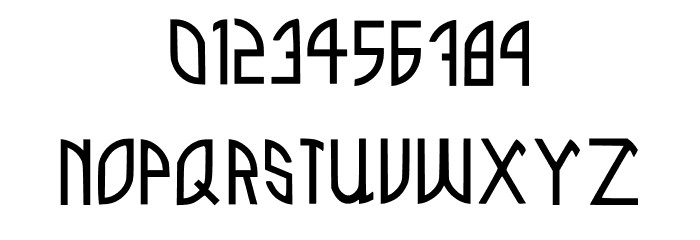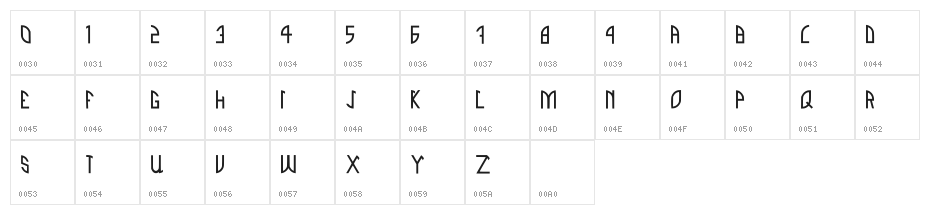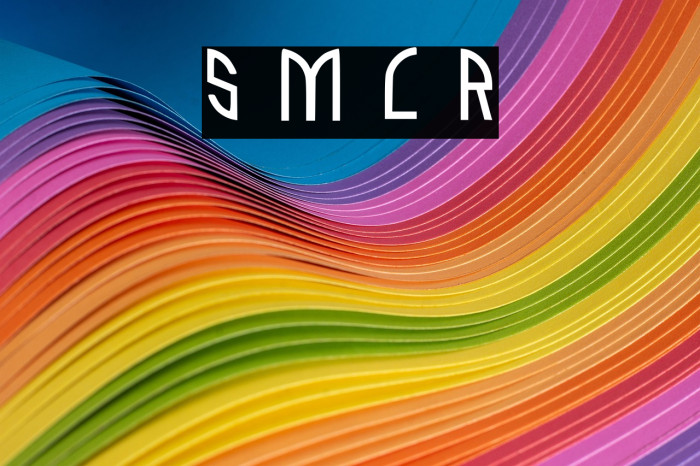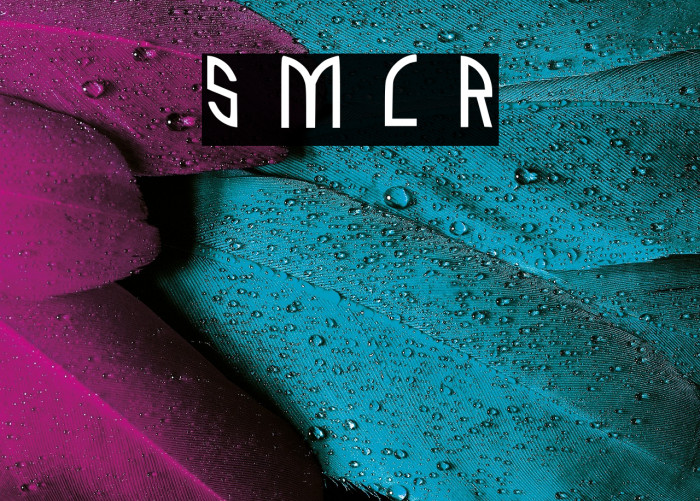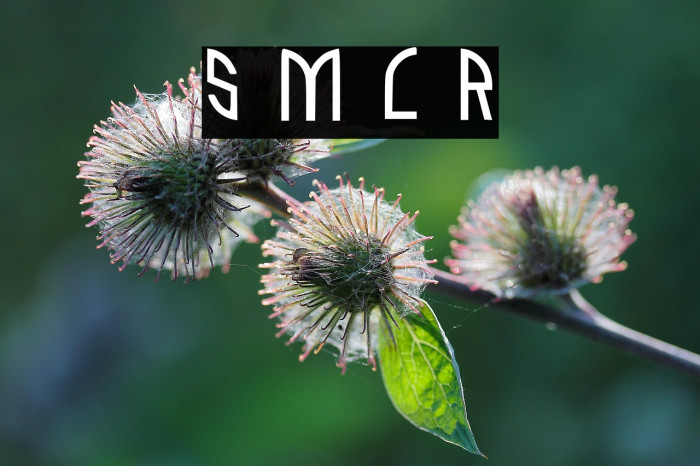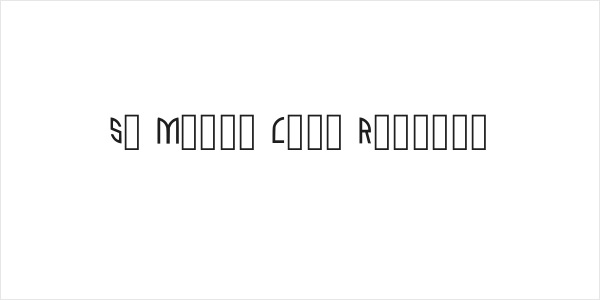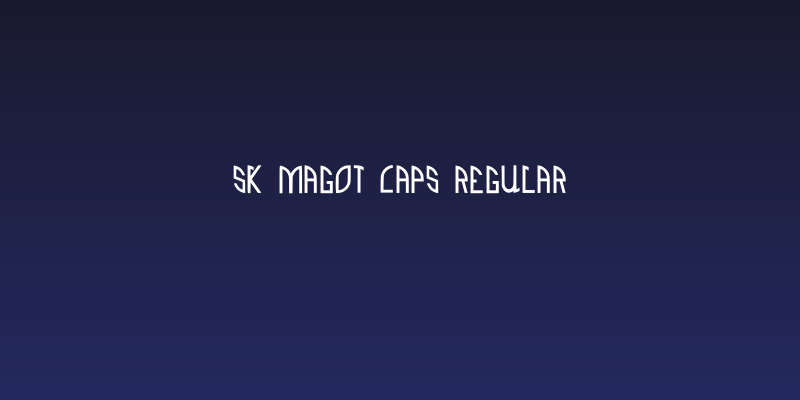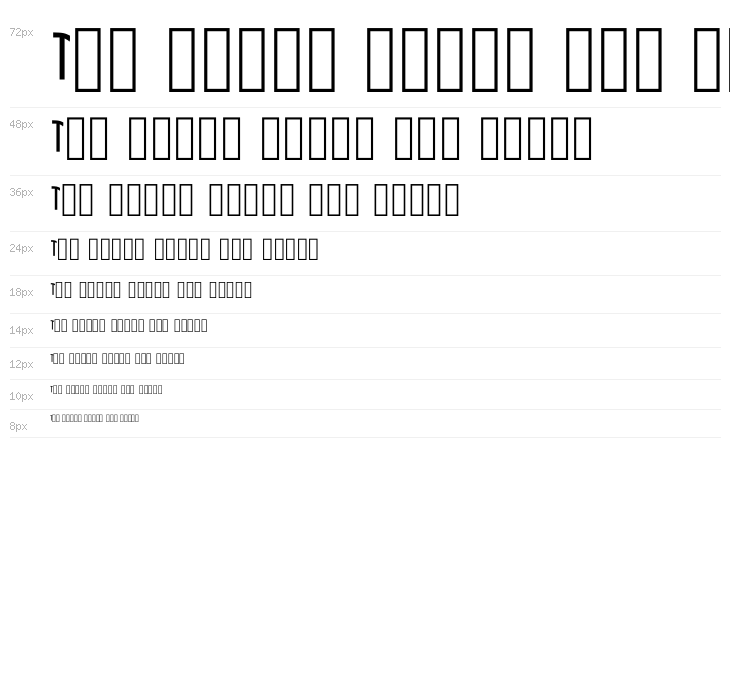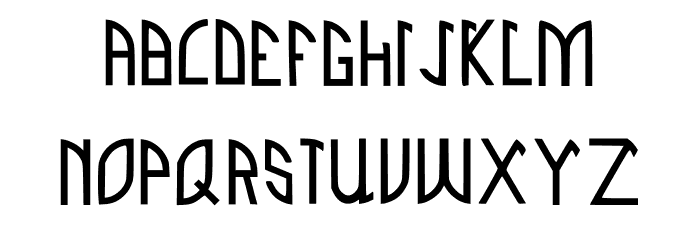
Sk Magot Caps Regular Font
Sk Magot Caps Regular Description
This font features a unique and modern design with a geometric and angular style. The characters are crafted with a consistent stroke width, giving it a uniform appearance. The uppercase letters exhibit a distinct architectural flair, with sharp edges and clean lines. The numerals and special characters maintain the same design ethos, ensuring a cohesive look across all elements. This font's design is both striking and versatile, making it suitable for a variety of creative applications.
| Proposed Projects | Ideal for branding, posters, and modern design projects where a bold statement is needed. |